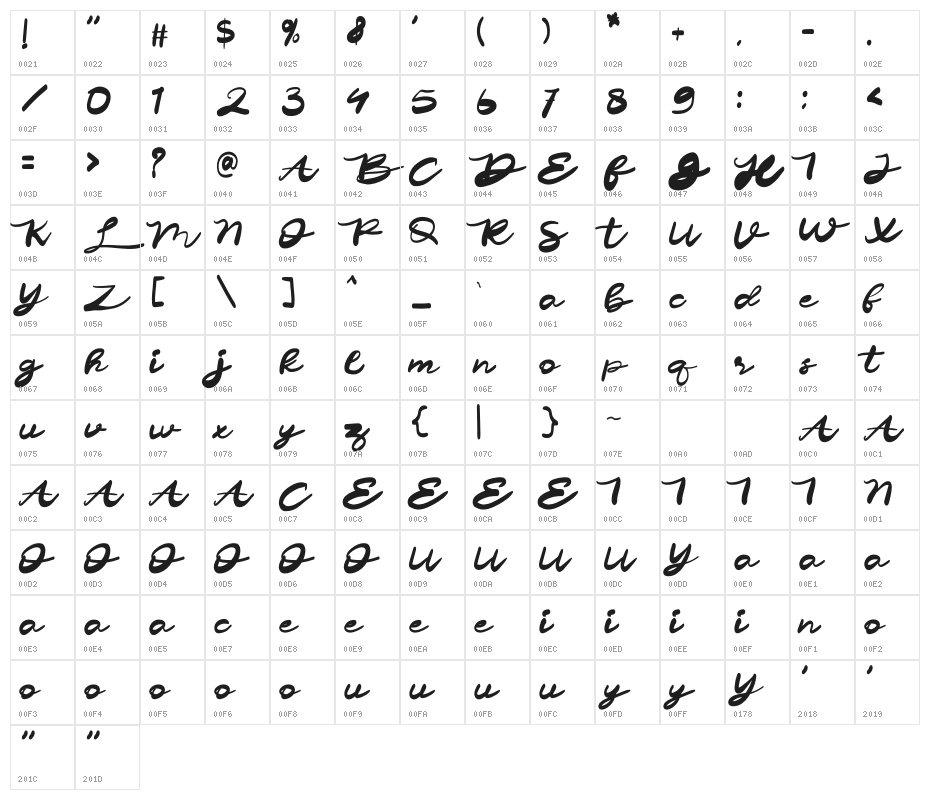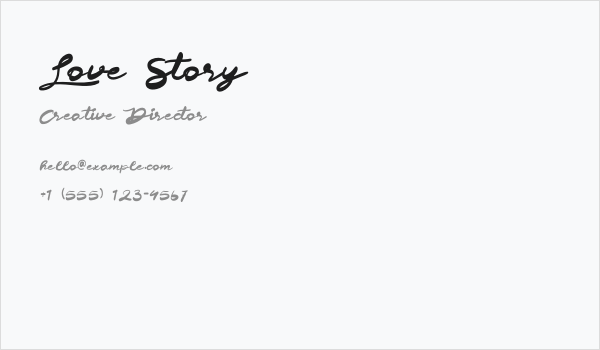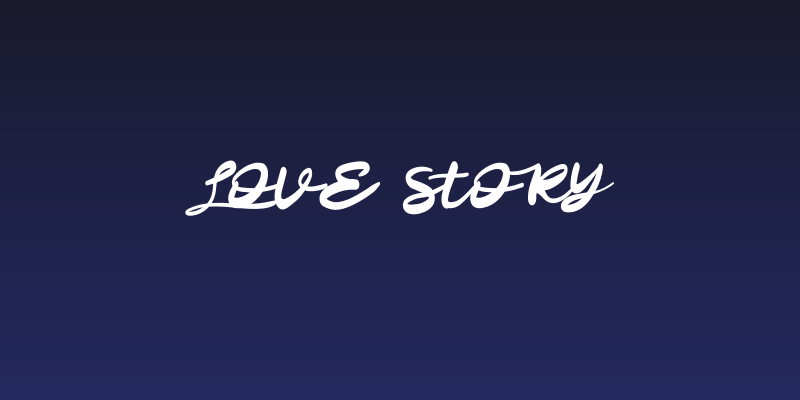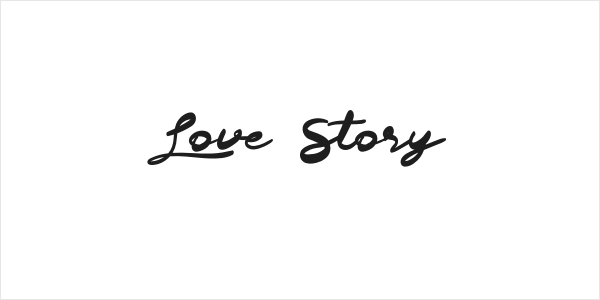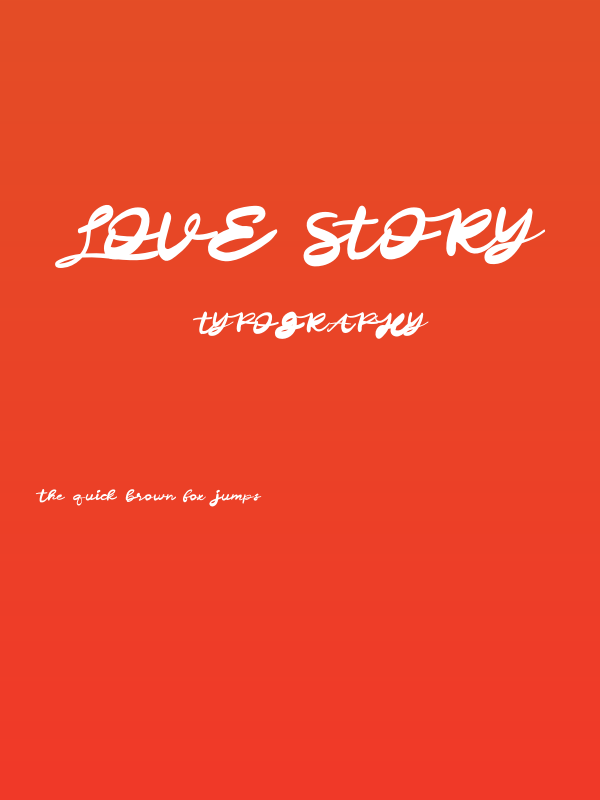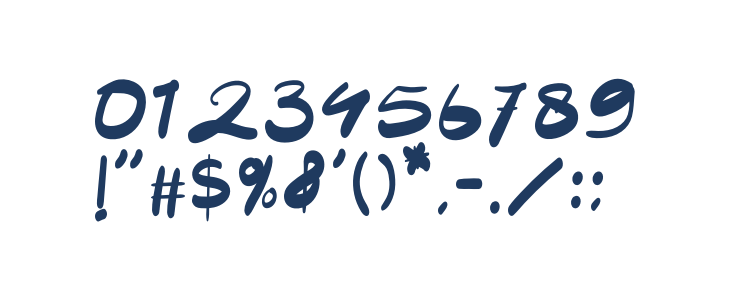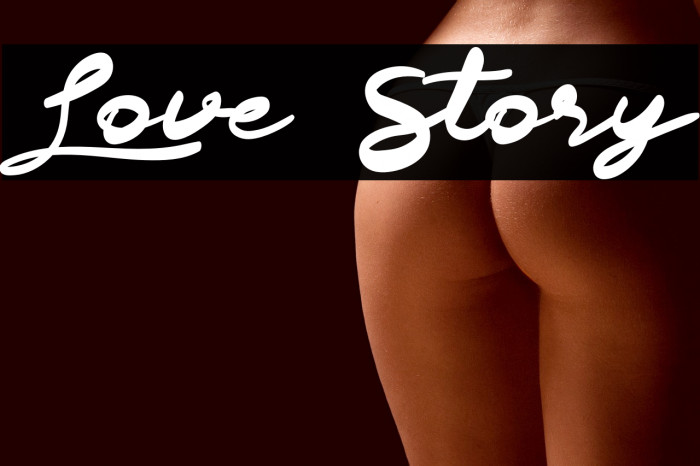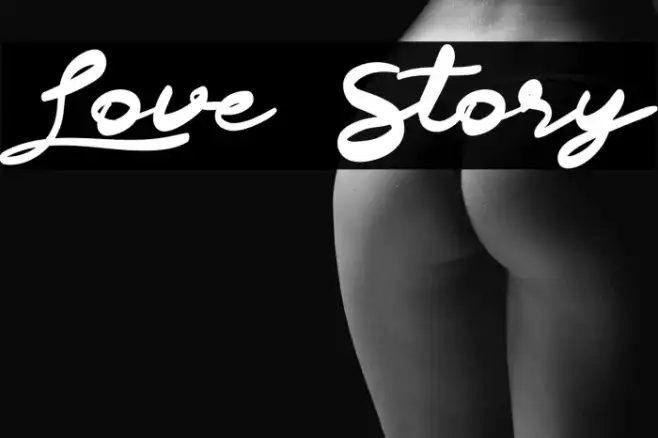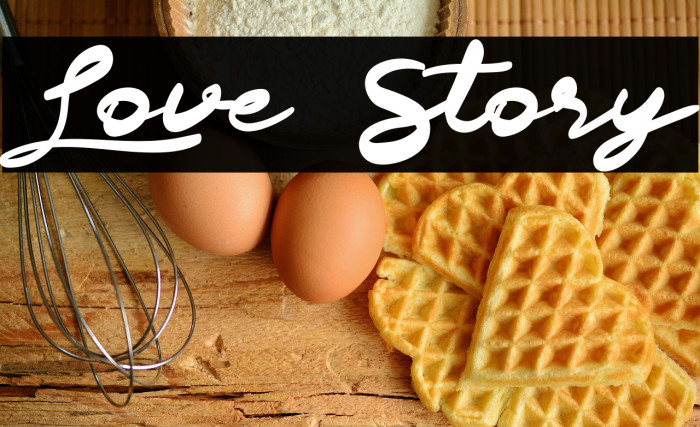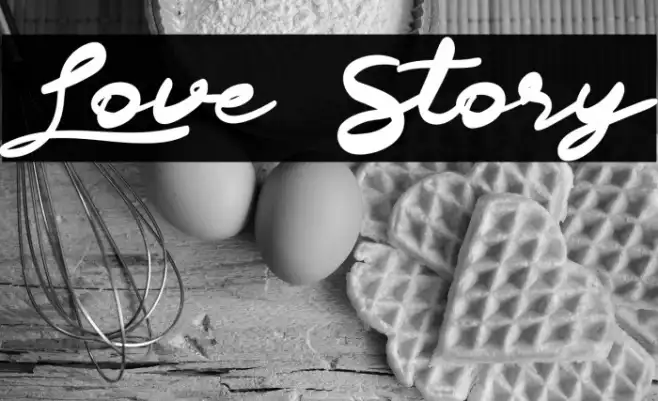
Love Story Font
Love Story Description
This font exudes a romantic and elegant charm with its flowing, cursive style. The letters are interconnected, creating a seamless and fluid appearance that mimics natural handwriting. The uppercase letters are bold and expressive, while the lowercase letters maintain a consistent rhythm and grace. The numerals and special characters are crafted with the same attention to detail, ensuring a cohesive look across all text. This font's design is both sophisticated and approachable, making it suitable for a variety of creative projects.
| Overall Style | Romantic |
| Use Case | Headlines, Invitations, Logos |
| Proposed Projects | Ideal for wedding invitations, love letters, greeting cards, and branding that requires a personal touch. |